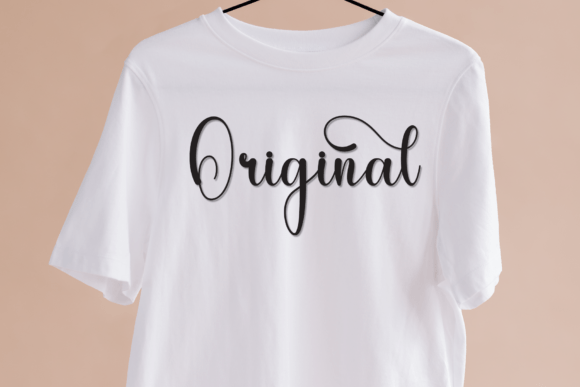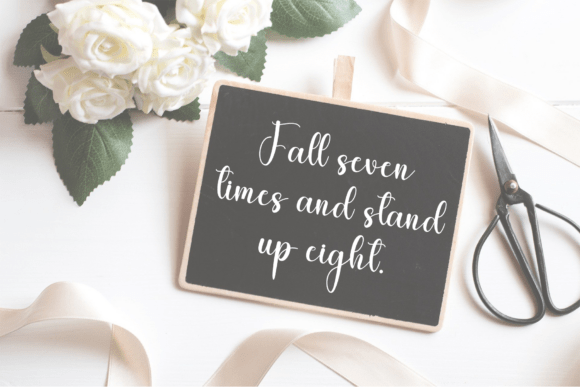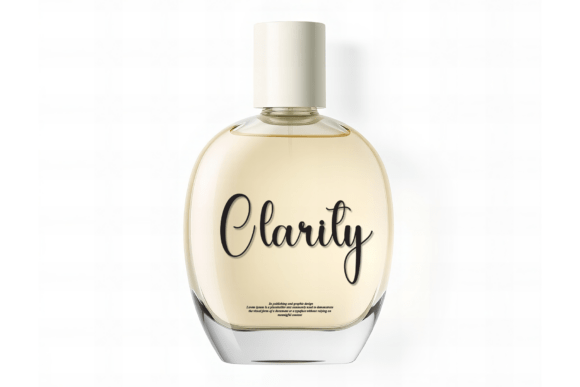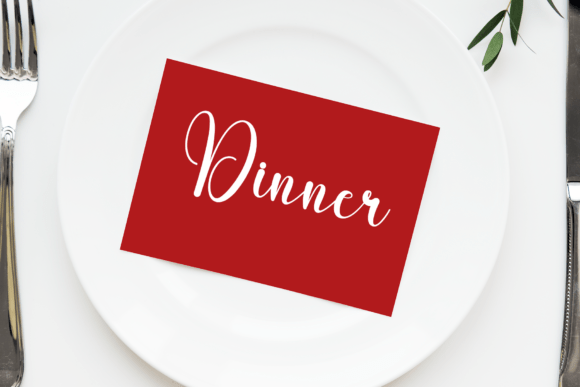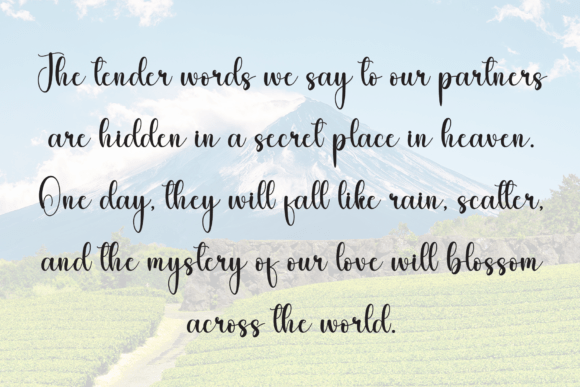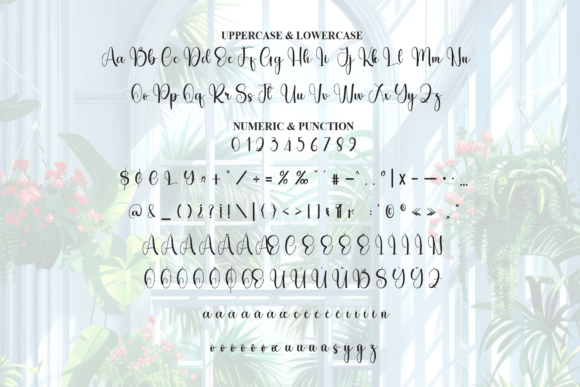
Enter Garden Font, a captivating handwritten script font that radiates warmth and charm naturally. Whether you’re designing a wedding invitation, a birthday card, or simply looking to add a touch of whimsy to your latest project, Garden Font is the perfect companion to help you bring your vision to life. Its friendly character and playful nature make it a valuable addition to any designer’s toolkit, adding a touch of joy and personality to every design it touches.
- Unique Characteristics: This font features a unique blend of botanical and typographic elements, making it perfect for designs that require a touch of elegance and sophistication.
Garden Font Review
Overall, I think the Garden Font is a lovely addition to any digital project. ✨ Its elegant and whimsical feel makes it perfect for garden-themed websites, magazines, or even children’s books. The font is highly customizable, with various weights and styles to choose from. ✨ The glyphs are also intricately designed, with subtle details that give the font a sense of depth and texture.
However, I do have a few concerns about the Garden Font. ⚠️ Firstly, the font may not be suitable for projects that require a more formal or serious tone. Its playful feel may clash with the message or atmosphere you’re trying to convey. Additionally, the font can be quite dense, which may make it difficult to read for users with visual impairments.
- Not suitable for formal or serious projects
- Can be dense and difficult to read for users with visual impairments
- Limited language support
Overall, I think the Garden Font is a great choice for the right project. With its unique style and customization options, it’s sure to add a touch of personality to any digital design. Just be mindful of its limitations and use it wisely.
Getting the Most Out of Garden Font
Tips for getting the most out of Garden Font include:
- Using it in conjunction with other floral or nature-inspired elements for a cohesive design.
- Experimenting with different font sizes and styles to create visual interest.
- Using it for titles, headings, or other attention-grabbing text elements.
Garden Font is commonly used for:
- Floral or garden-themed designs.
- Children’s book illustrations or educational materials.
Alternatives to Garden Font
Playfair Display is a luxurious, elegant serif font ideal for high-end branding, luxury goods, and formal invitations. It features intricate details and ornate flourishes, making it perfect for creating a sense of sophistication and refinement.
Compared to Garden Font, Playfair Display is more formal and luxurious, whereas Garden Font has a more casual, whimsical feel.